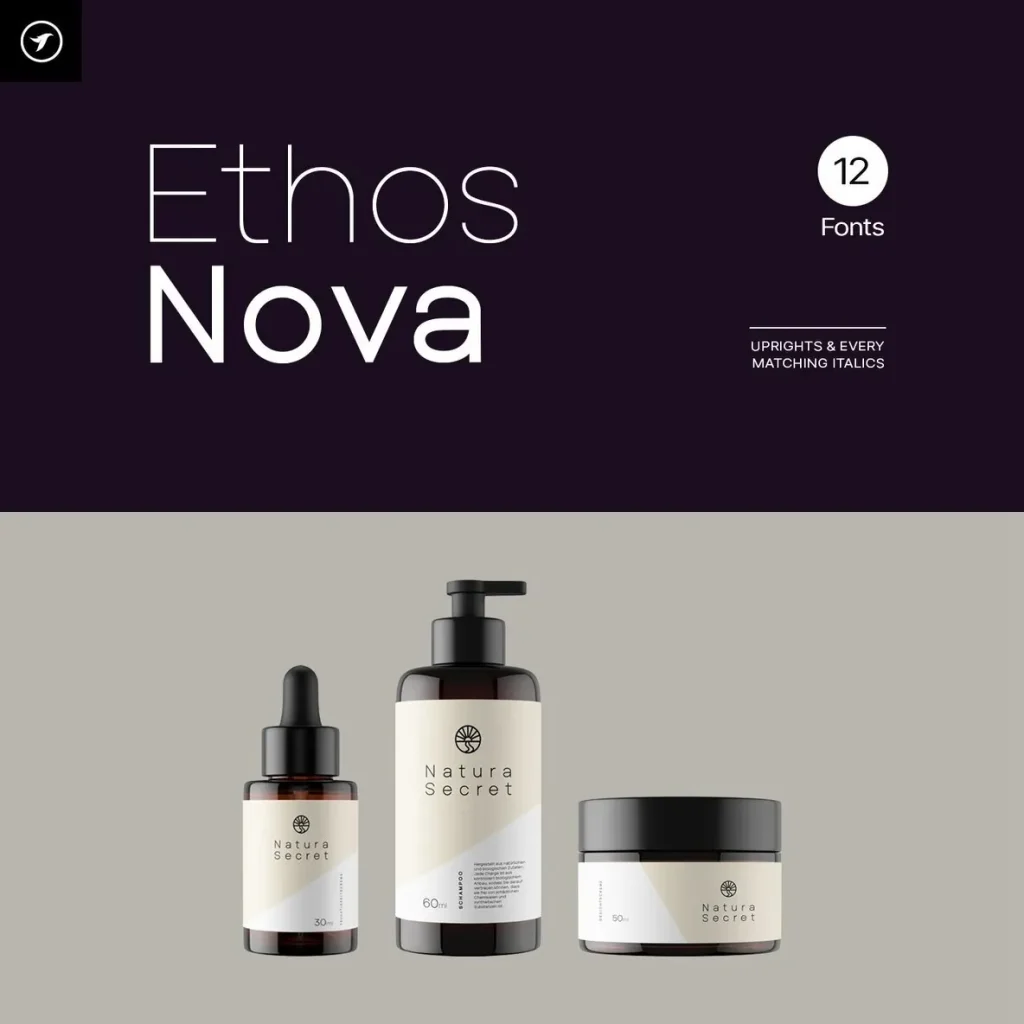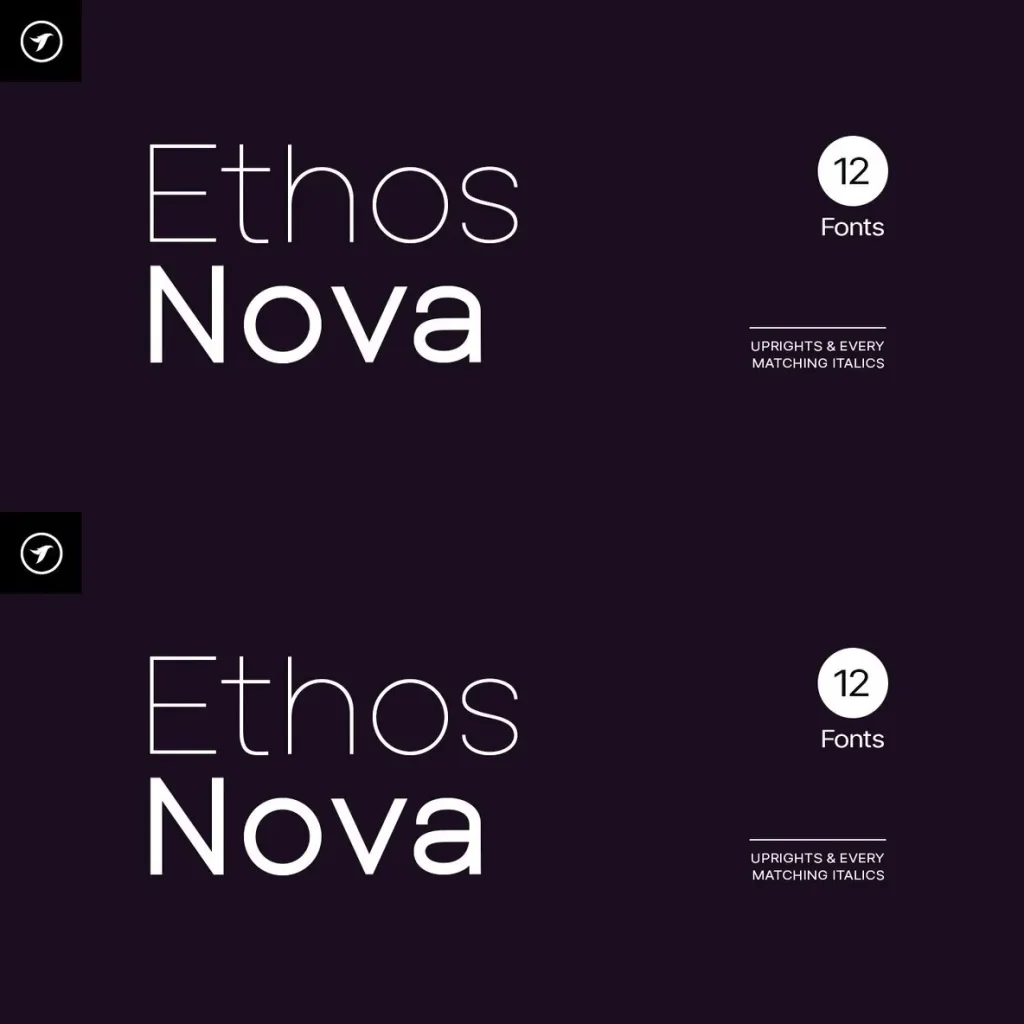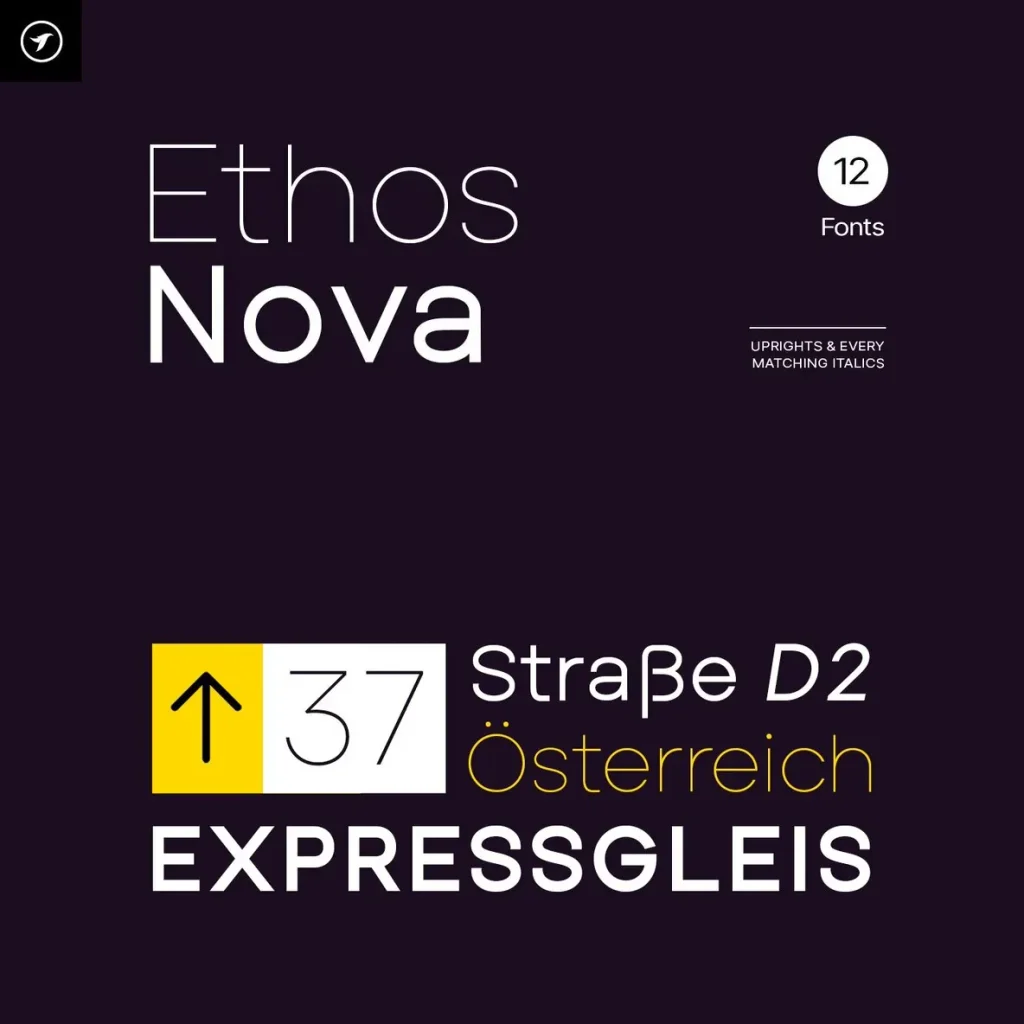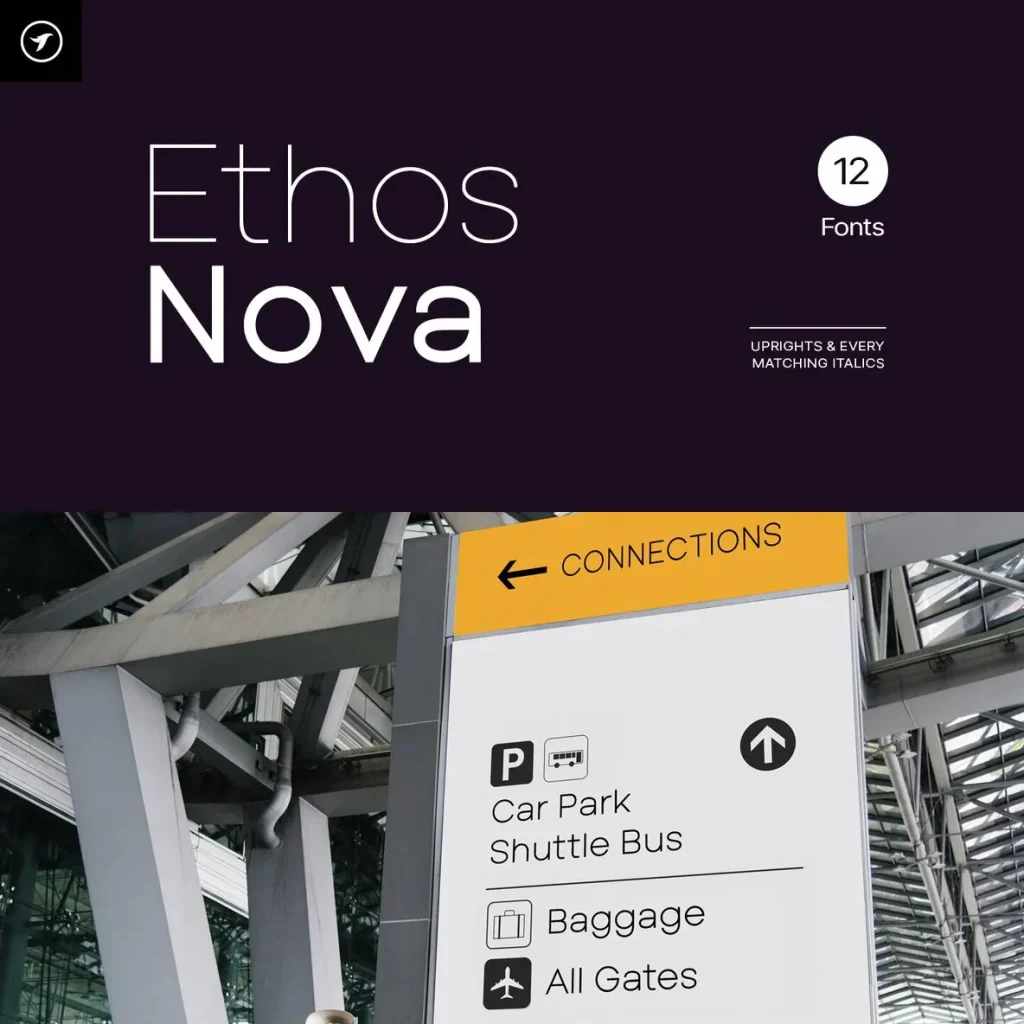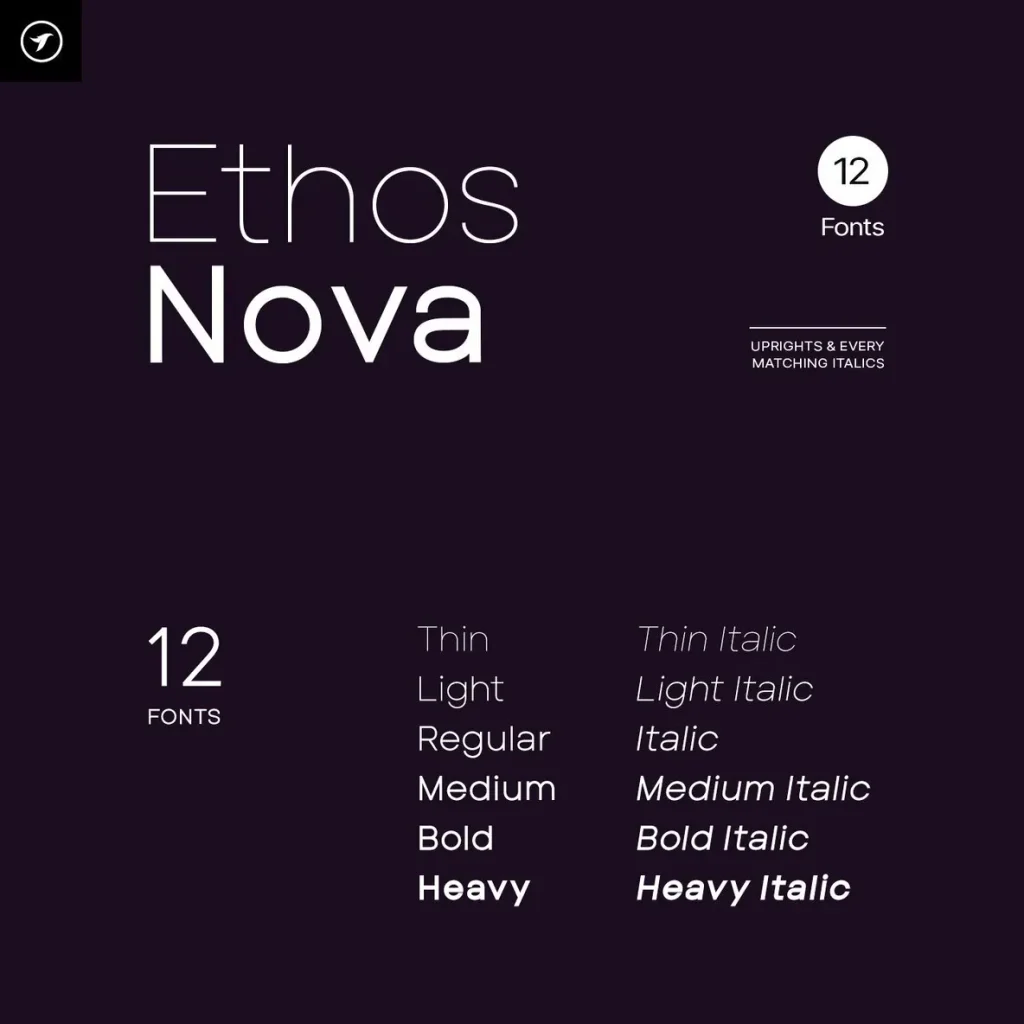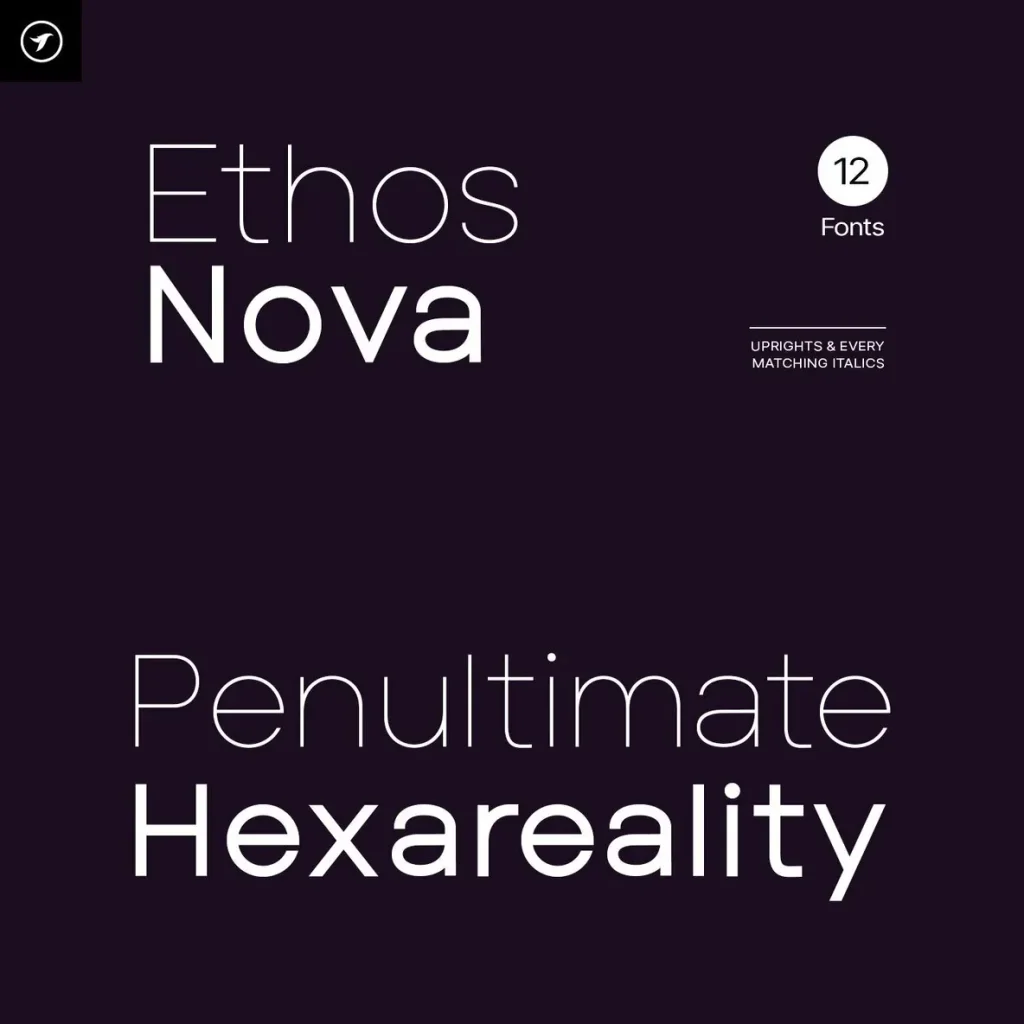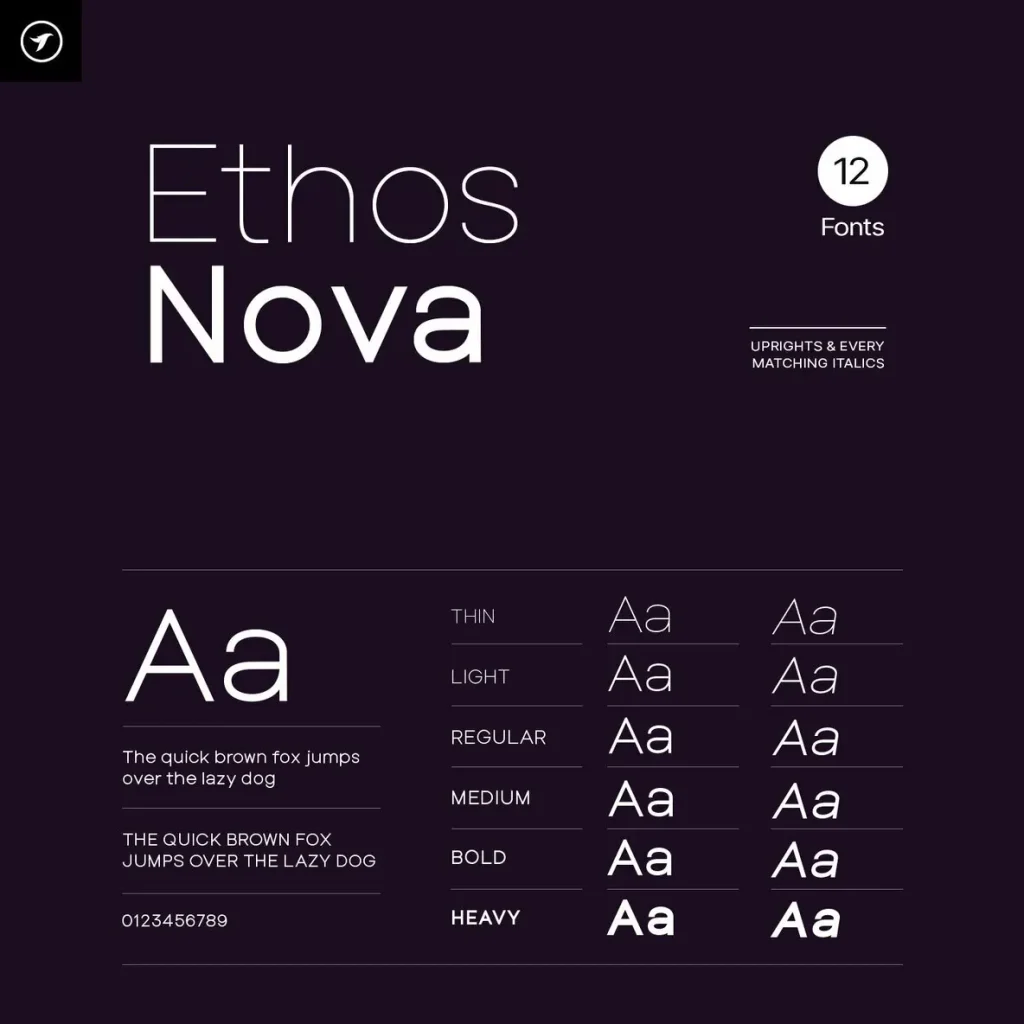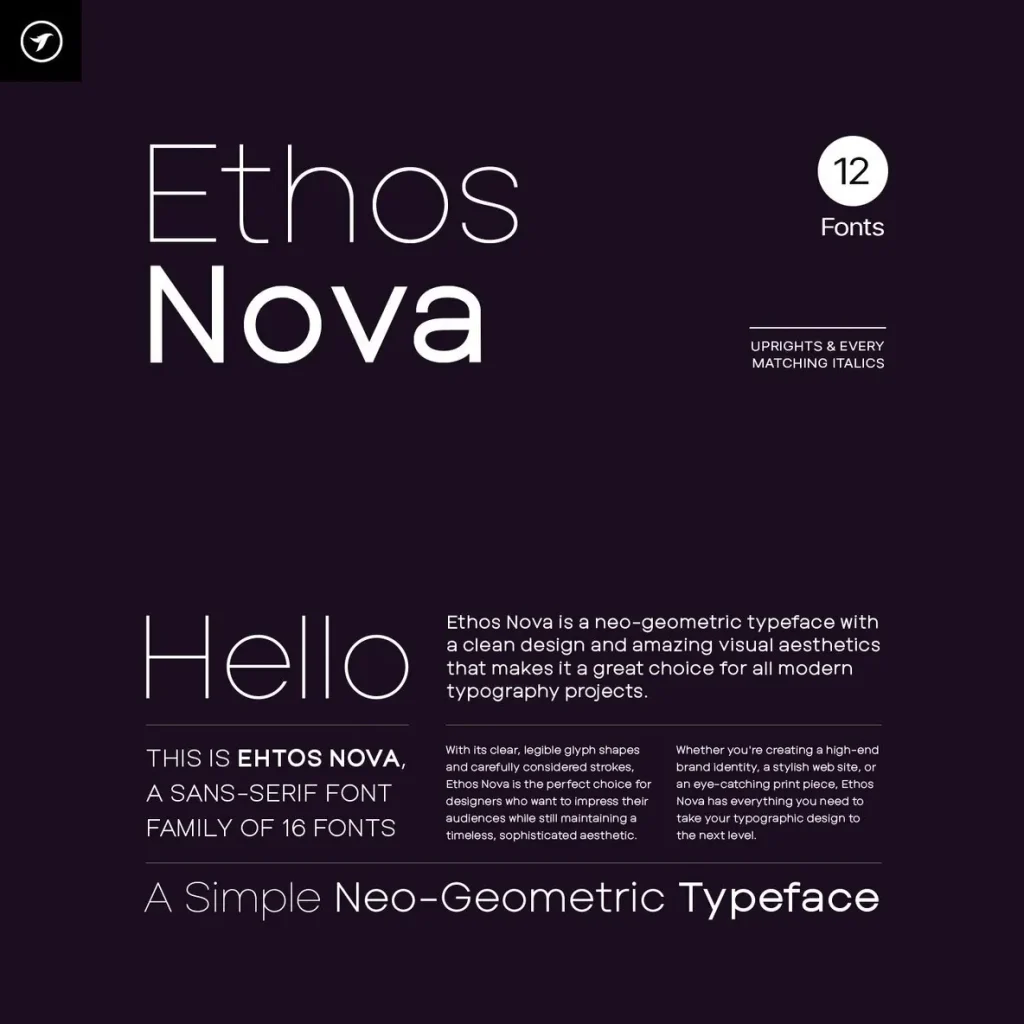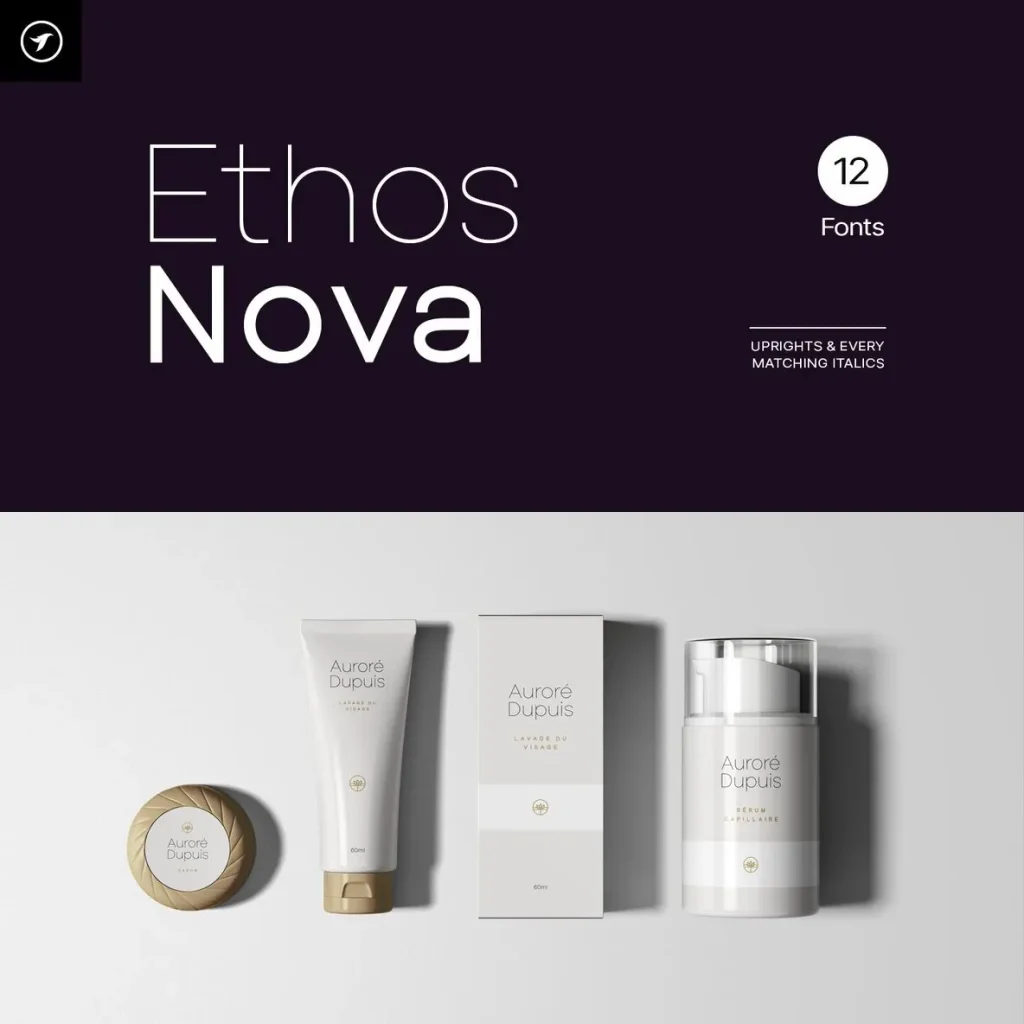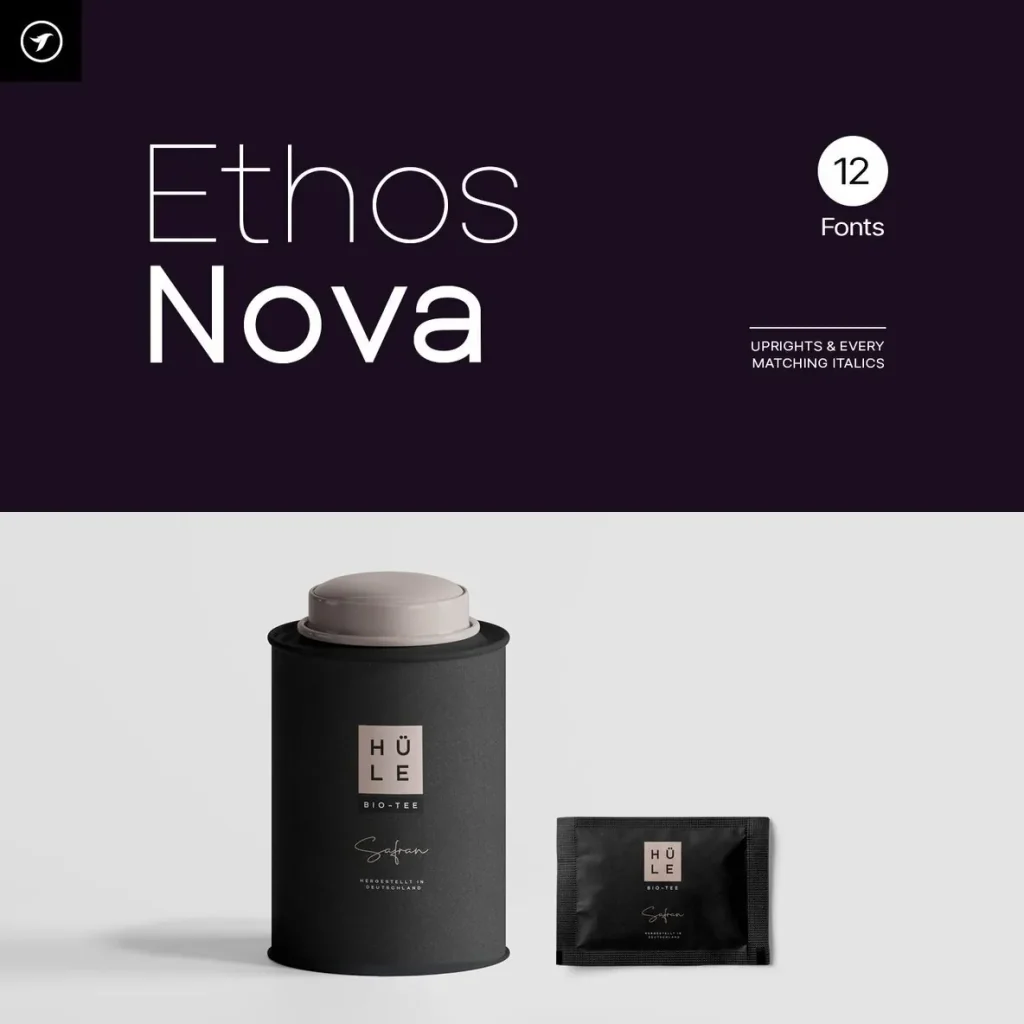
Ethos Nova — Clarity With Poise
Ethos Nova is a minimalist sans-serif typeface family focused on clarity, elegance, and functional design. Its clean letterforms and balanced proportions give professional typography a calm, timeless foundation.
Designed for branding systems, editorial layouts, digital products, corporate identities, and modern design applications, Ethos Nova supports clear communication across demanding visual contexts. Its restrained structure suits work where precision, readability, and refined typographic tone matter.